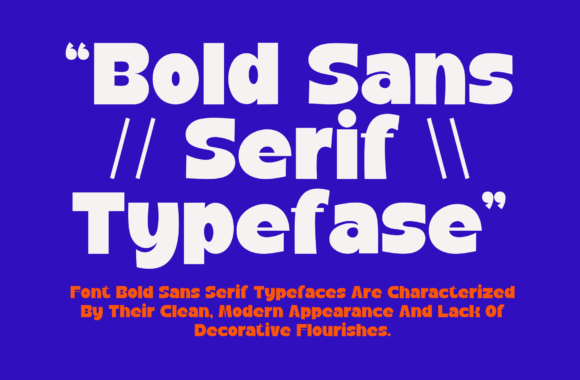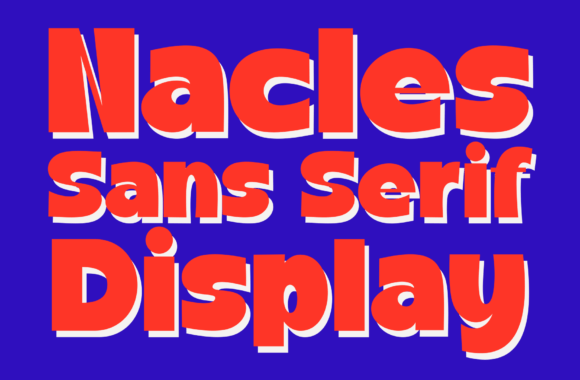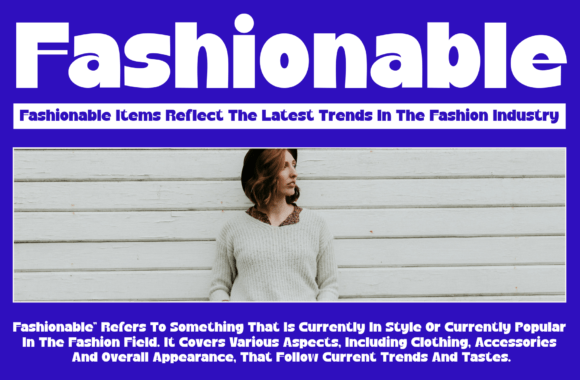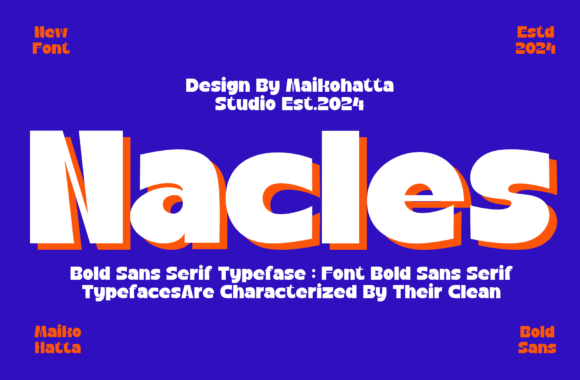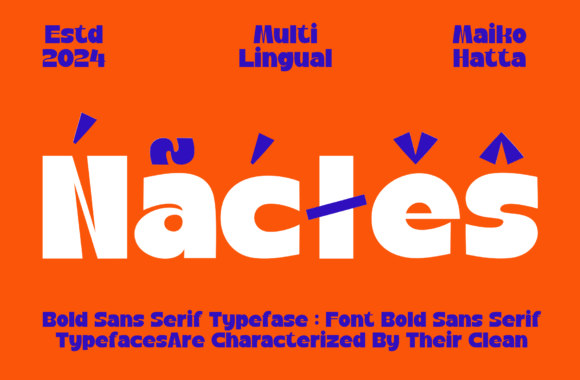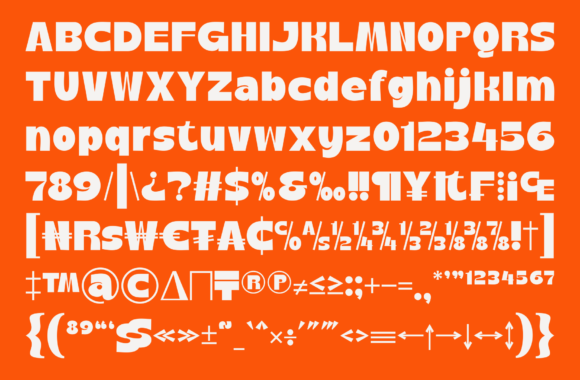
Introduction to Nacles Font
Have you ever found yourself staring at a blank canvas, wondering which font will bring your creative project to life? The search for the perfect typography can be a daunting task, but what if you stumbled upon a font that’s as versatile as it is beautiful? That’s where the Nacles Font comes in – a game-changing design resource that’s about to become your new go-to.
Whether you’re a seasoned graphic designer or a budding creative, the Nacles Font is a high-quality choice that’s sure to elevate your work. Its clean and professional look is perfect for a wide range of design contexts, from modern typography to minimalist branding. Plus, with a transparent background, you can easily layer it over any design element, making it a free download that’s truly priceless.
So, what makes the Nacles Font so valuable for designers? Its simplicity and visual appeal make it a timeless choice that’s sure to stand the test of time. And with its free download option, you can experiment with it as much as you want, without breaking the bank. Get ready to unlock the full potential of your creative projects with the Nacles Font – your new design best friend.
Key Features of Nacles Font
- High-quality design: Nacles Font offers a unique and modern aesthetic, perfect for creative projects.
- Transparent background: This font allows for seamless integration with any design, giving you complete control over your creative project.
- Large character set: Nacles Font includes a comprehensive character set, including uppercase and lowercase letters, numbers, and punctuation marks.
- High-resolution design: With a resolution of 300 DPI, Nacles Font is perfect for use in high-quality print materials, such as business cards and brochures.
- Customizable: Nacles Font can be easily customized to fit your specific design needs, making it an ideal choice for designers working on creative projects.
Honest Review: Nacles Font
As a designer, I’m always on the lookout for high-quality fonts to elevate my creative projects. Recently, I had the chance to work with the Nacles Font, and I’m excited to share my honest review with you.
- ✨ Unique and creative design: The Nacles Font has a distinct style that’s perfect for adding a touch of whimsy to your projects.
- ✨ High quality: The font is well-designed and rendered, making it a great addition to any design resource.
- ⚠️ Limited character set: The Nacles Font is a relatively new release, and it’s missing some of the more common characters and glyphs.
- ⚠️ Not ideal for complex text: Due to its unique design, the Nacles Font may not be the best choice for complex or lengthy text blocks.
Overall, I think the Nacles Font is a great addition to any design resource, and it’s perfect for designers looking to add a touch of creativity to their projects. While it has some limitations, I think the benefits far outweigh the drawbacks.
In Adobe Photoshop or Illustrator, select the Nacles Font from the font list and apply it to your design. The font’s high-quality design makes it perfect for creative projects, such as infographics, brochures, and business cards.
To use the Nacles Font in PowerPoint or Word, select the font from the font list and apply it to your text. The font’s clean design makes it perfect for presentations and documents.
The Nacles Font is commonly used in various design projects, including logos, branding materials, and marketing collateral. Its high-quality design and transparent background feature make it a versatile design resource.
Tips for Getting the Most Out of Nacles Font
To get the most out of the Nacles Font, use it in conjunction with other high-quality design elements, such as images and graphics. Experiment with different font sizes and styles to create visually appealing designs.